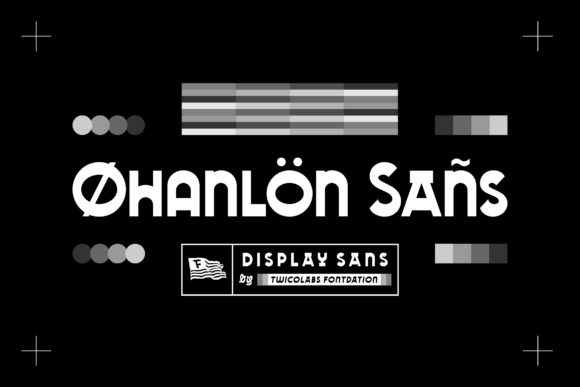
Ohanlon Sans Font for Bold Craft Projects
As a small business owner and creator, I know the struggle of finding a typeface that feels both current and timeless. We spend hours scrolling through font libraries, looking for that perfect balance between trendy aesthetics and practical legibility. When designing physical products or digital downloads, the typography carries as much weight as the illustration itself. This is where Ohanlon Sans steps in as a reliable workhorse for modern makers. As a bold display font, it offers a confident visual voice that translates beautifully from screen to substrate, making it an essential asset for anyone selling handmade goods, printables, or custom stationery.
The Visual Personality of Modern Typography
Ohanlon Sans distinguishes itself through a clean, geometric structure that feels intentionally cool without being cold. In the world of creative fonts, it strikes a rare balance; it has enough character to stand alone as a headline but remains neutral enough to support intricate artwork. For crafters and Etsy sellers, this versatility is gold. The letterforms are sturdy and well-proportioned, which means they hold up exceptionally well when scaled down for product tags or blown up for welcome signs. Unlike overly decorative display fonts that can become illegible at small sizes, Ohanlon Sans maintains its integrity across various applications. Its modern typography style signals quality to customers, subtly elevating the perceived value of everything from boutique clothing labels to minimalist wall art.
Elevating Physical Products and Packaging
When creating tangible items, readability is not just an aesthetic choice; it is a functional necessity. I have found Ohanlon Sans particularly effective for product packaging and labeling. If you are designing candle labels, soap wrappers, or pantry jar stickers, this sans serif font provides the clarity customers need while maintaining a premium brand identity. The bold weight ensures high contrast against colored backgrounds or textured papers, which is crucial for shelf appeal. For apparel creators, this typeface works wonderfully on tote bags and t-shirts because the thick strokes translate cleanly through screen printing and heat transfer vinyl. It avoids the thin lines that often peel or crack, ensuring your merchandise looks professional wash after wash.
Digital Downloads and Printable Design
For those of us in the printable and template business, file versatility matters. Ohanlon Sans renders crisply in digital formats, making it a top choice for planners, social media templates, and invitation suites. When designing editable Canva templates or Corjl files for clients, you need a font that is universally appealing yet distinct. This display font serves as an excellent anchor for wedding invitations, where it can be used for the couple’s names or section headers like "Reception" and "Details." Its modern edge pairs seamlessly with traditional elements, allowing you to create stationery that feels fresh rather than dated. Furthermore, because the spacing is consistent, it reduces the time spent kerning and adjusting text boxes, streamlining your production workflow for digital downloads.
Mastering Font Pairings for Brand Identity
A single font rarely does all the heavy lifting in a cohesive brand identity. Ohanlon Sans shines brightest when paired thoughtfully with complementary typefaces. Because it is a structured sans serif font, it acts as the perfect grounding element for more expressive partners. Try pairing it with a flowing script font for wedding welcome boards; the contrast between the organic curves of the script and the rigid stability of Ohanlon Sans creates visual tension that is incredibly attractive. Alternatively, combine it with a delicate serif font for a sophisticated, editorial look on blog graphics or magazine-style printables. This flexibility allows you to use one premium font across multiple product lines while achieving distinctly different moods, maximizing your return on investment for design assets.
1. Script + Ohanlon Sans: Best for romantic invitations, feminine branding, and elegant social media quotes.
2. Serif + Ohanlon Sans: Ideal for academic planners, luxury skincare labels, and corporate stationery.
3. Handwritten + Ohanlon Sans: Perfect for playful nursery decor, birthday party kits, and casual sticker sheets.
Practical Considerations for Cutting Machines
For Cricut and Silhouette users, the anatomy of a font dictates whether a project succeeds or fails. Intricate serifs and thin connectors are notorious for tearing during the weeding process. Ohanlon Sans is designed with crafting realities in mind. The bold, uniform strokes provide ample surface area for adhesive vinyl and iron-on transfers, reducing the risk of lifting edges. When cutting small text for laptop decals or planner stickers, this typeface remains readable and intact. However, always perform a test cut when working with new materials. While the font is robust, extremely small sizes may still require adjustments to blade pressure or material settings. For SVG-style designs intended for sale, this font’s clean geometry ensures that your customers will have a smooth cutting experience, leading to better reviews and repeat business for your digital shop.
Ultimately, selecting the right typography is about more than just aesthetics; it is about communication and craftsmanship. Ohanlon Sans offers a compelling solution for makers who refuse to compromise between style and function. Whether you are branding a new candle line, designing a best-selling printable planner, or cutting vinyl decals for a local market, this bold display font provides the professional foundation your work deserves. By integrating such versatile design assets into your toolkit, you ensure that every label, sign, and digital download reflects the care and quality you put into your craft.